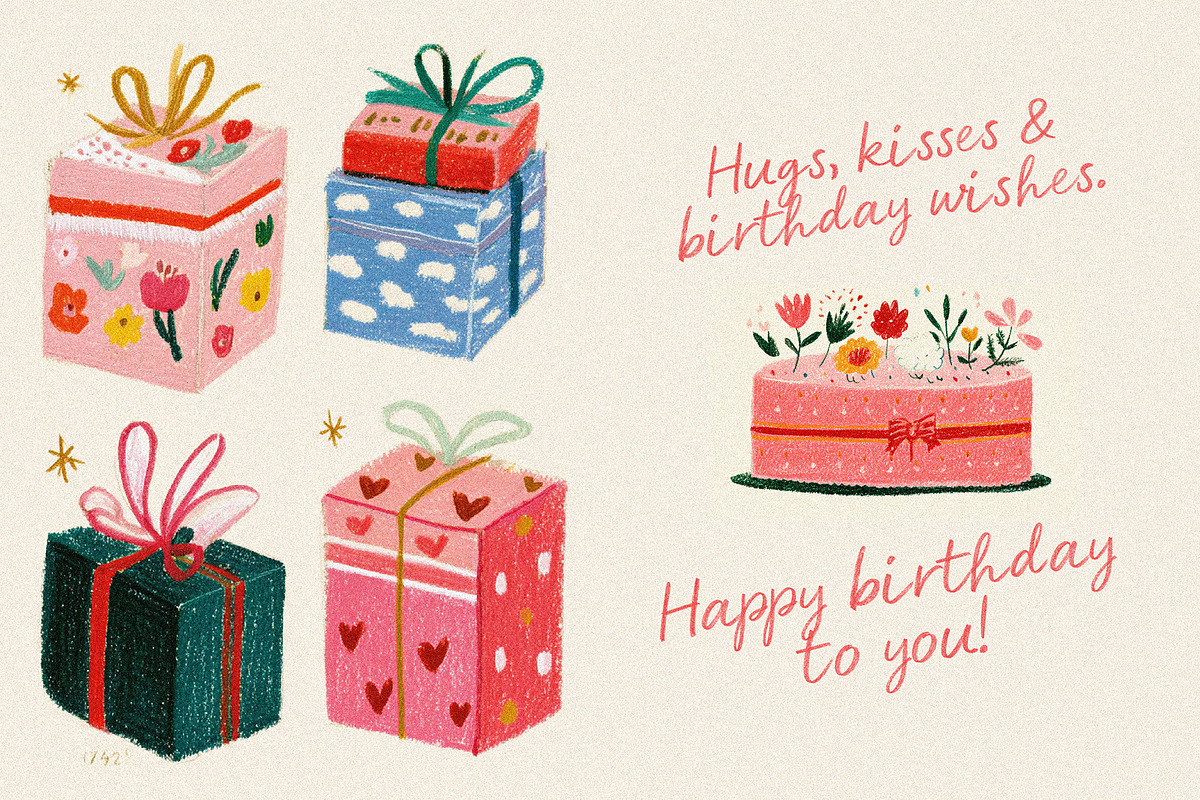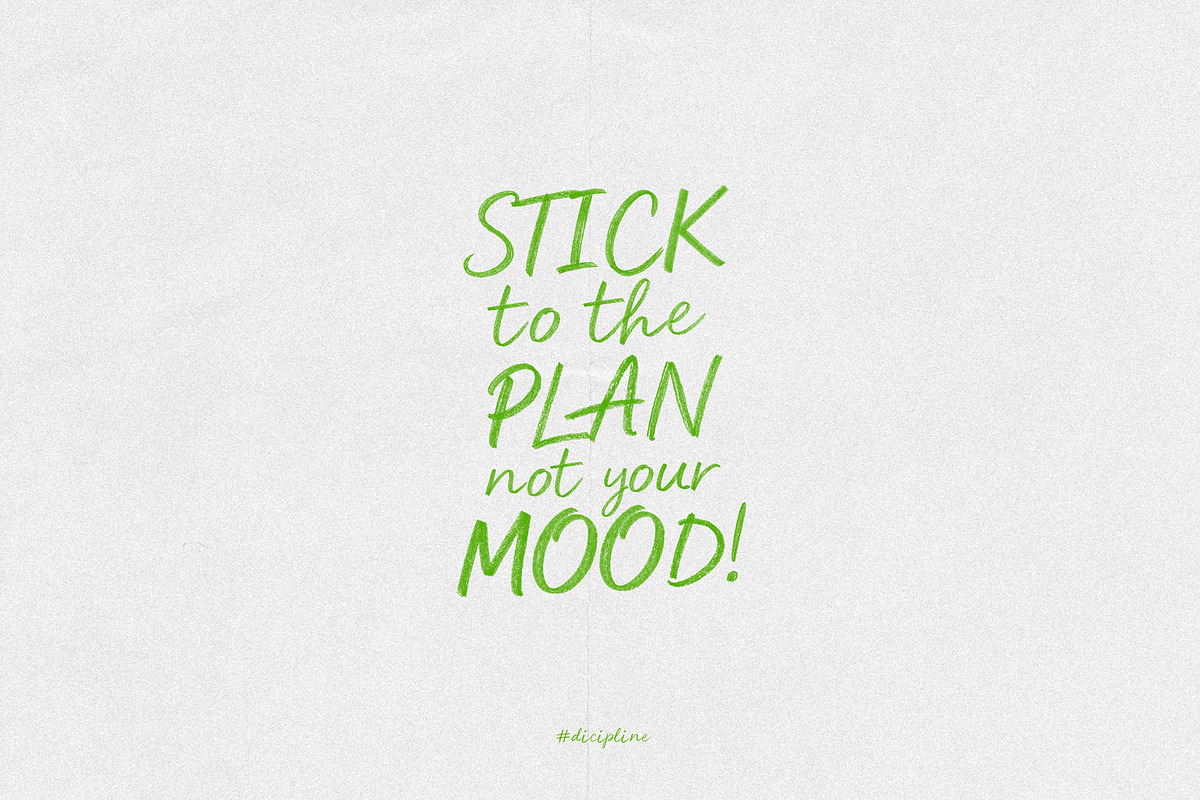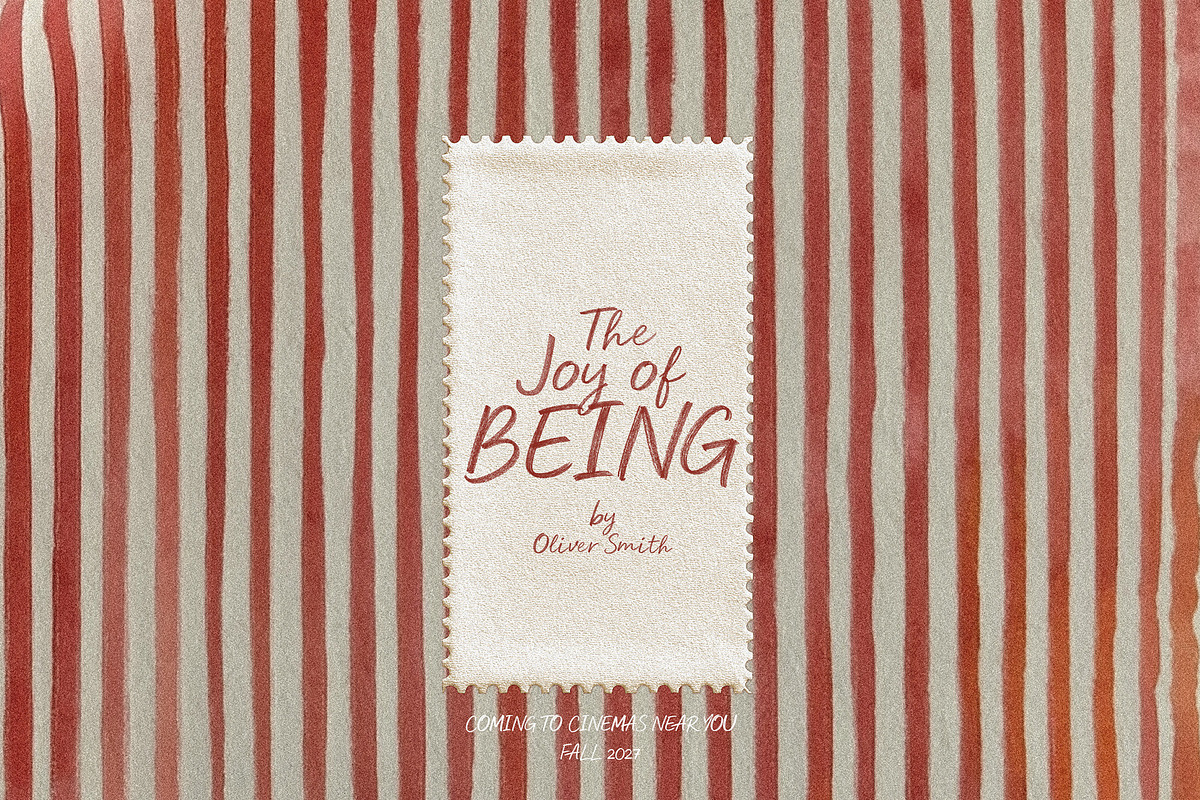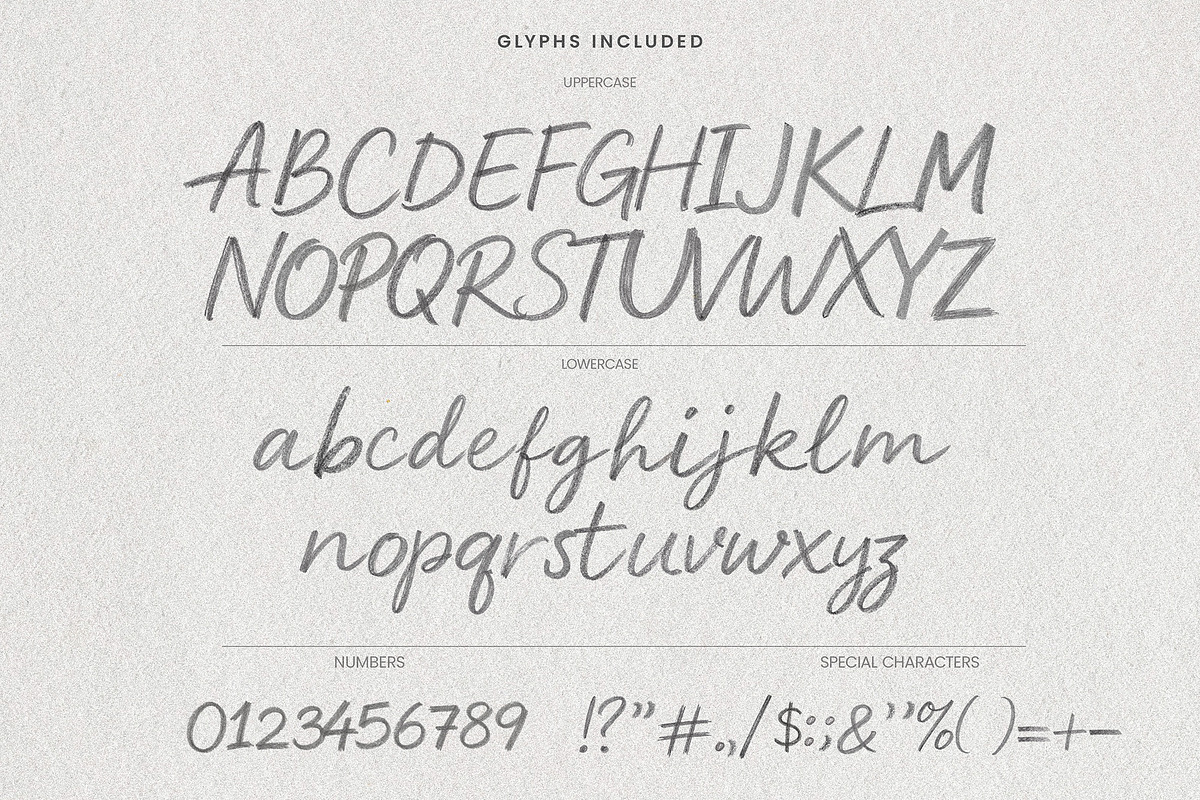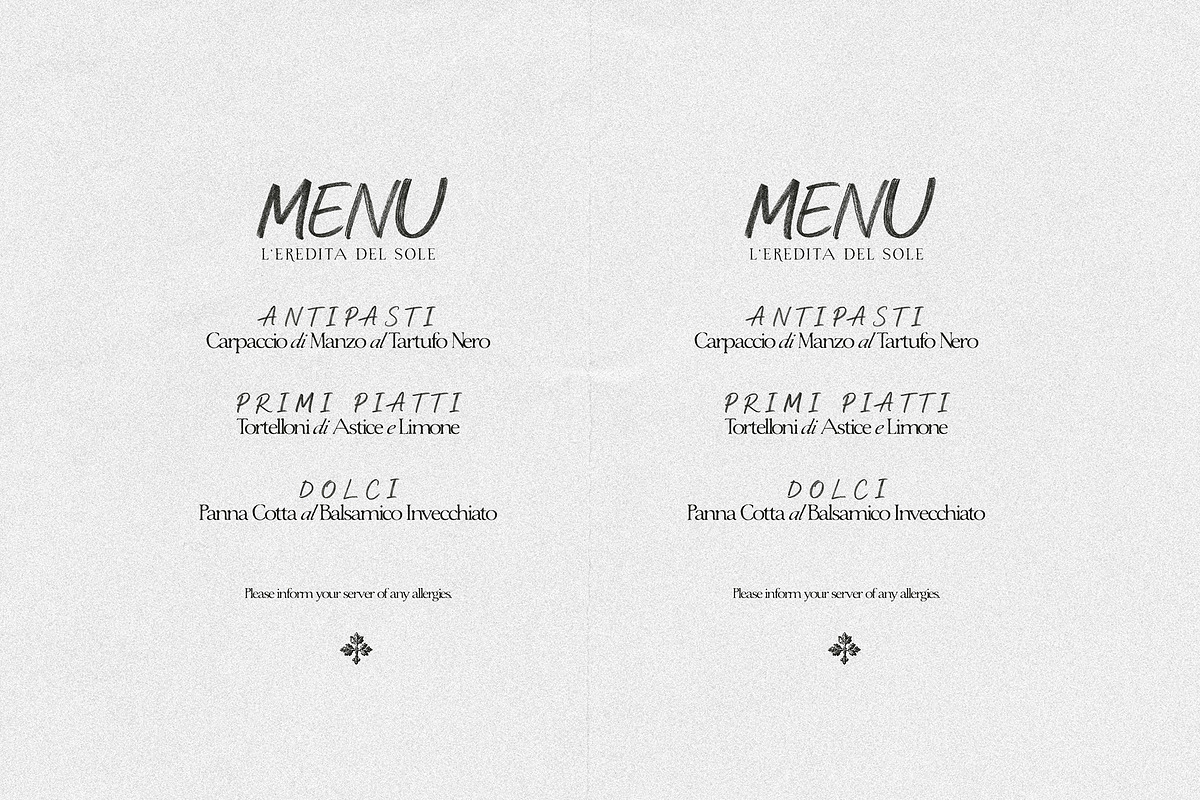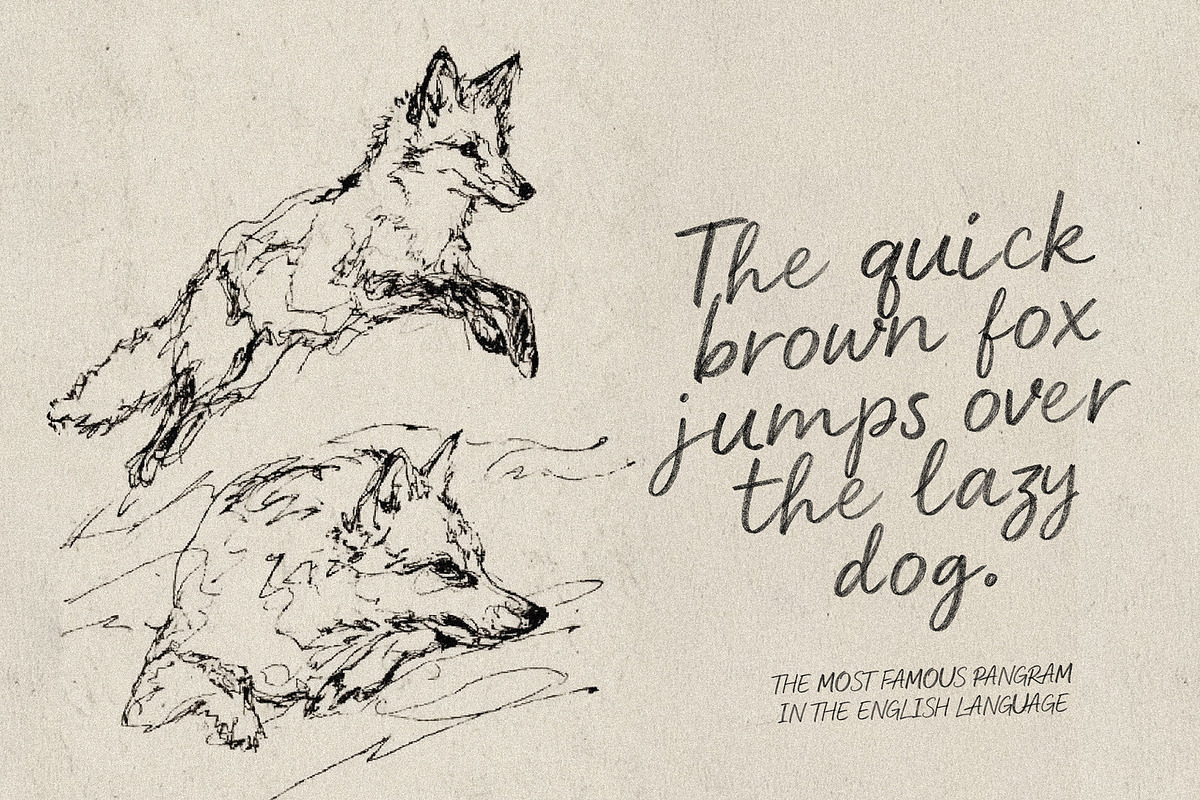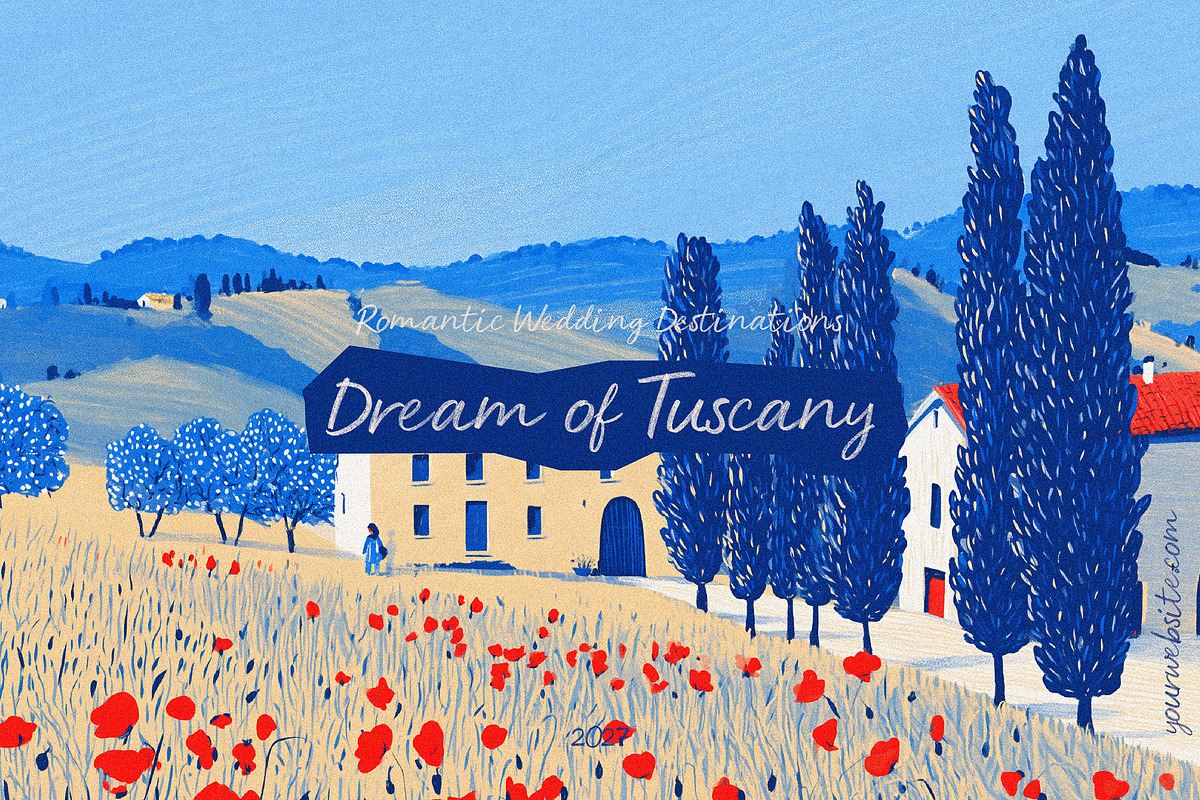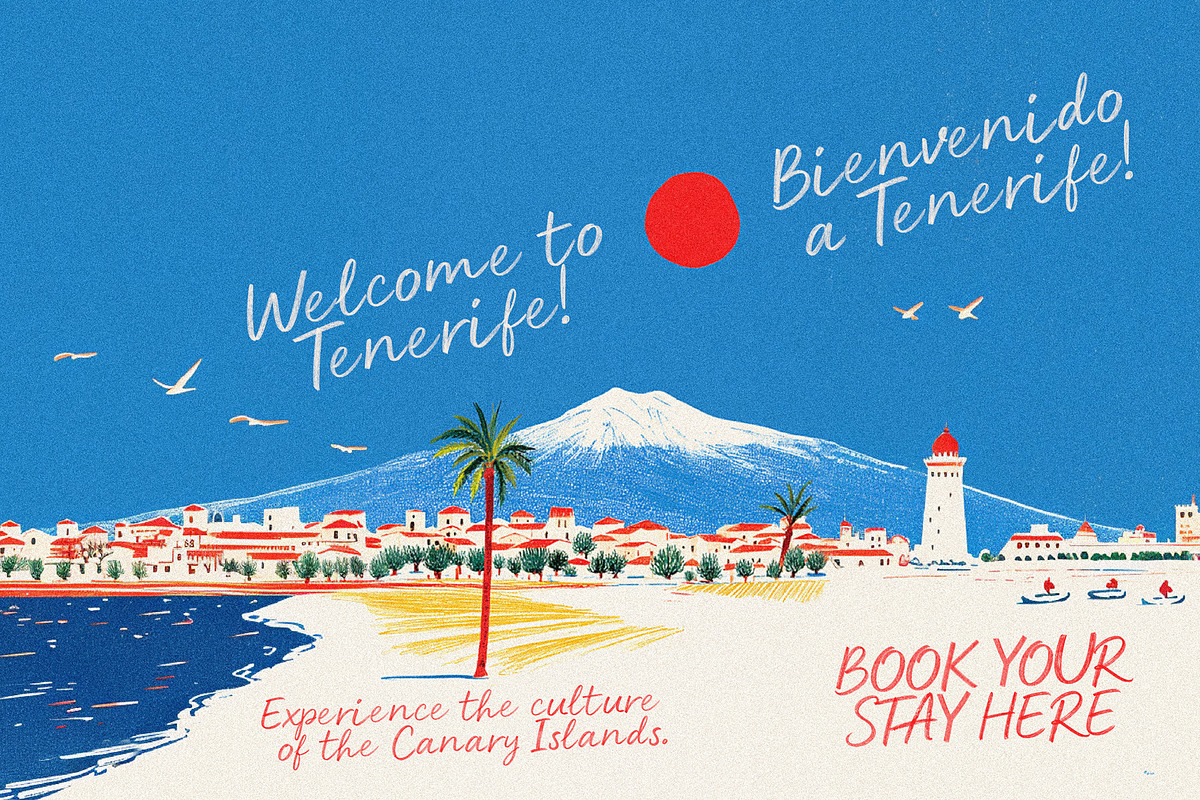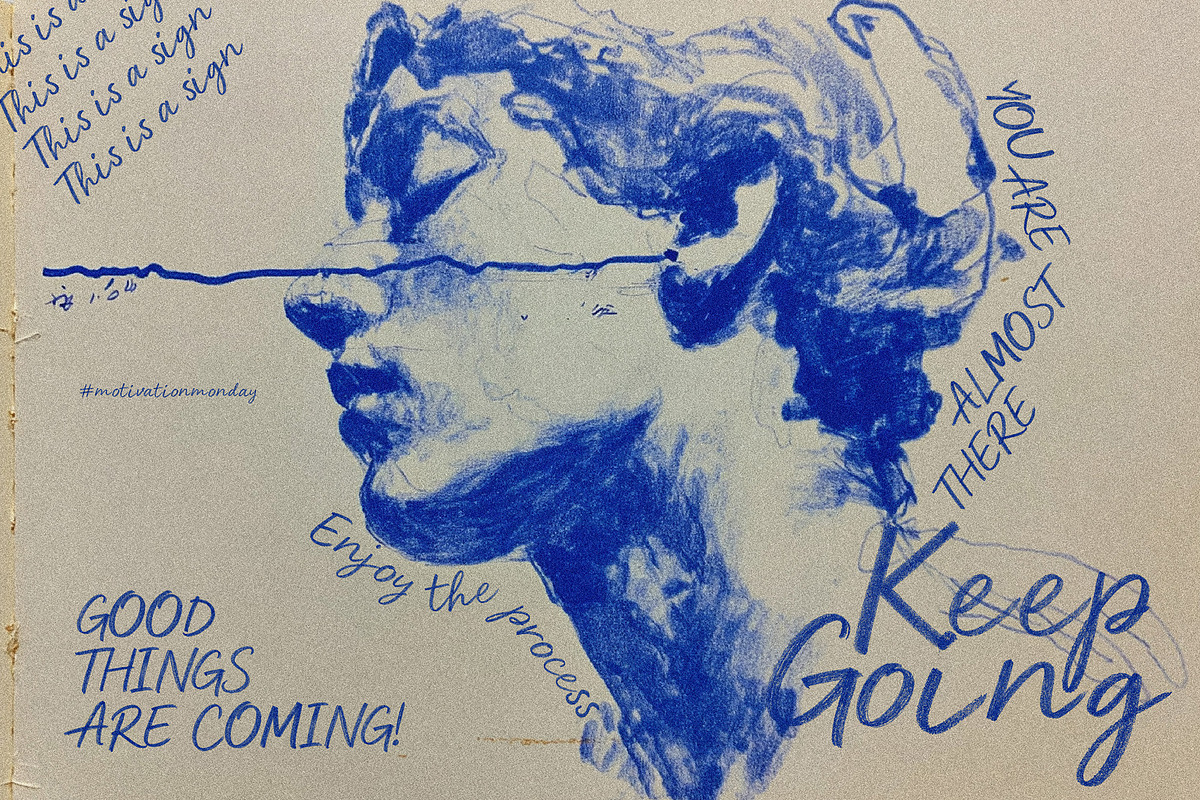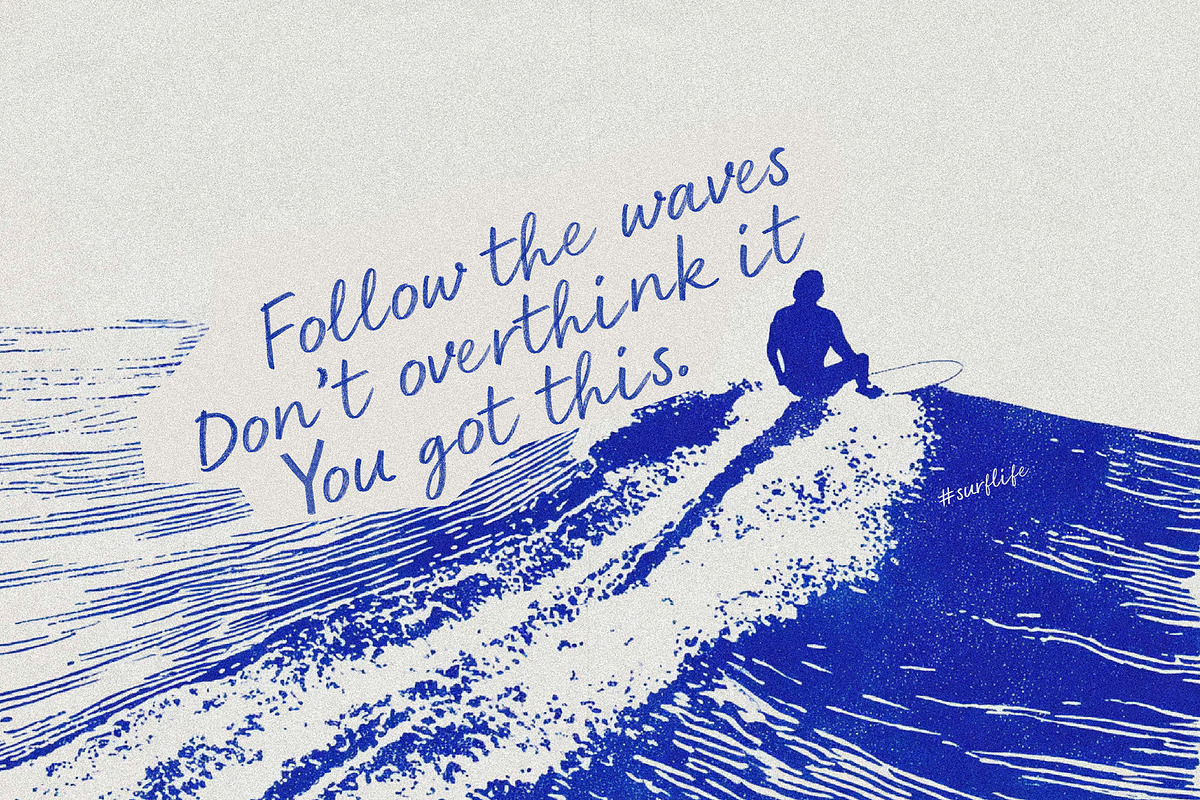
Pencil Script - Handwritten Script
Introducing Pencil Script — a beautifully textured handwritten script font that captures the raw, organic charm of real pencil on paper. Every stroke and subtle imperfection has been carefully preserved to give your designs that genuine hand-drawn feel.
Whether you are designing wedding invitations, creating social media quotes, or branding a boutique business, Pencil Sans adds a layer of depth and realism that standard flat fonts simply can’t match.
PERFECT FOR:
- Branding & Logos: Give your brand a friendly, approachable, and "handmade" identity.
- Wedding Stationery: Create stunning, organic-feeling invitations, RSVP cards, and place settings.
- Social Media: Stand out on Instagram and Pinterest with quotes that look like they were sketched in a notebook.
- Packaging Design: Perfect for organic beauty products, coffee shops, or handmade goods.
- Digital Scrapbooking: Add authentic notes to your digital planners and journals.